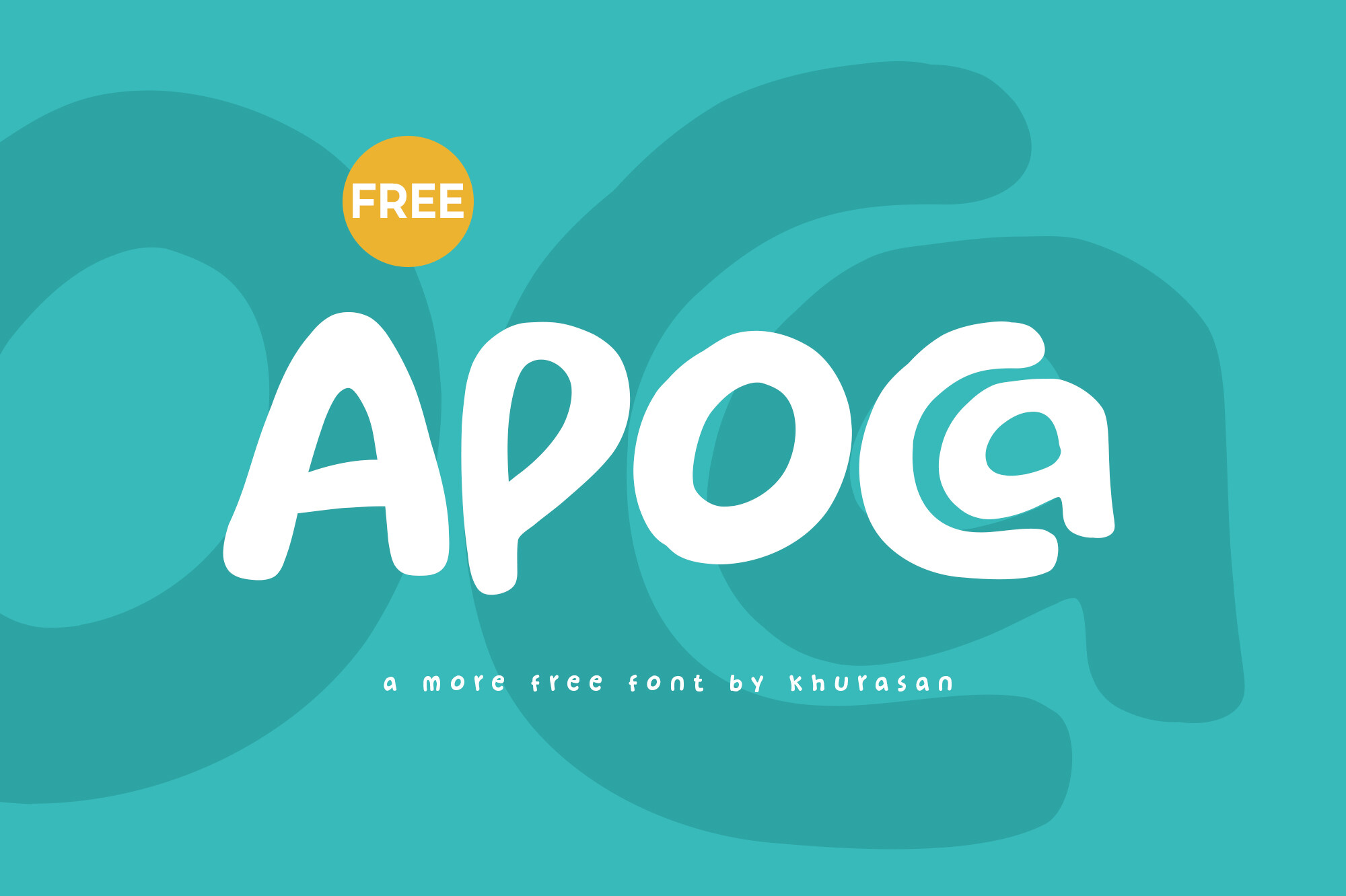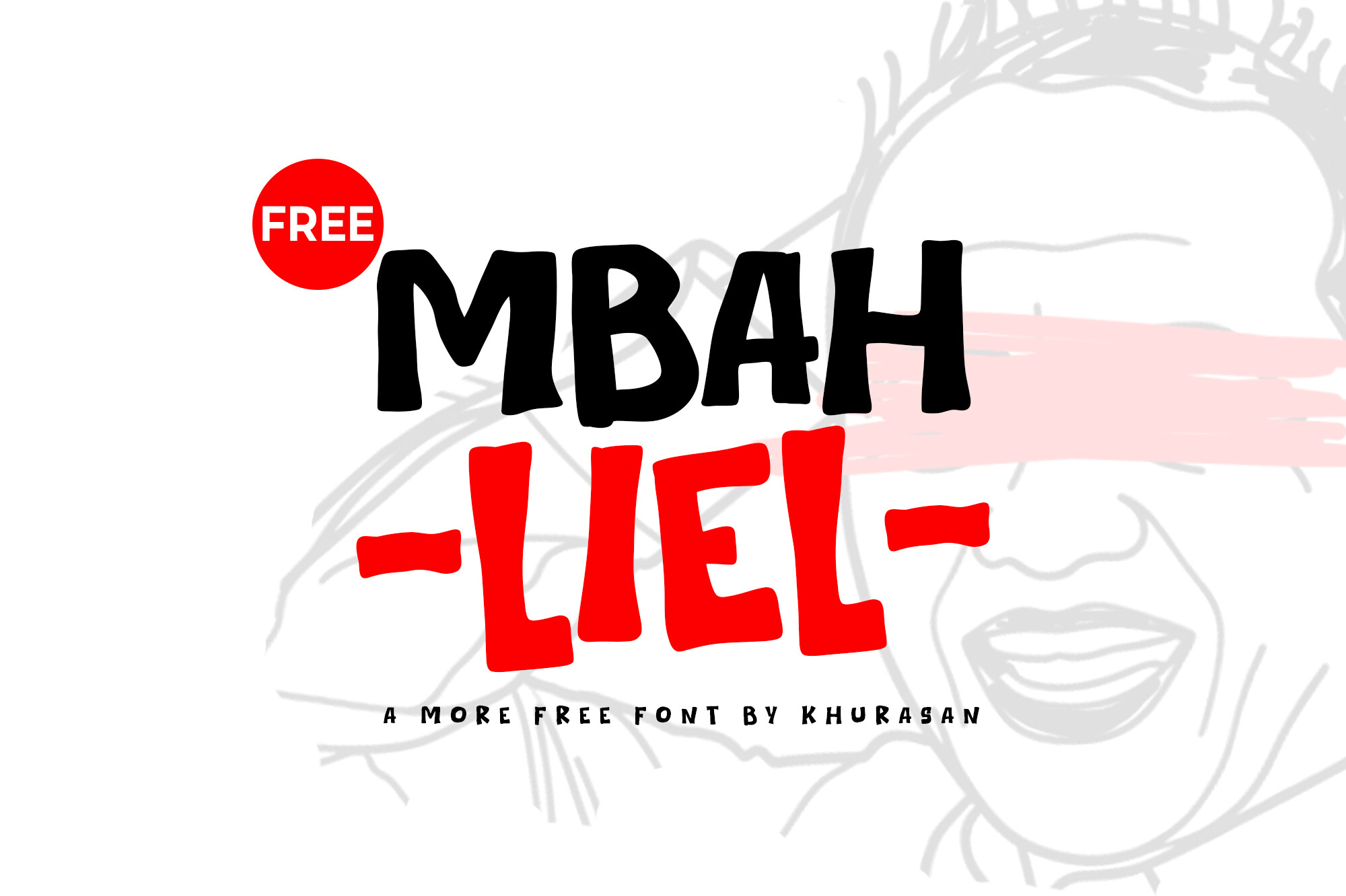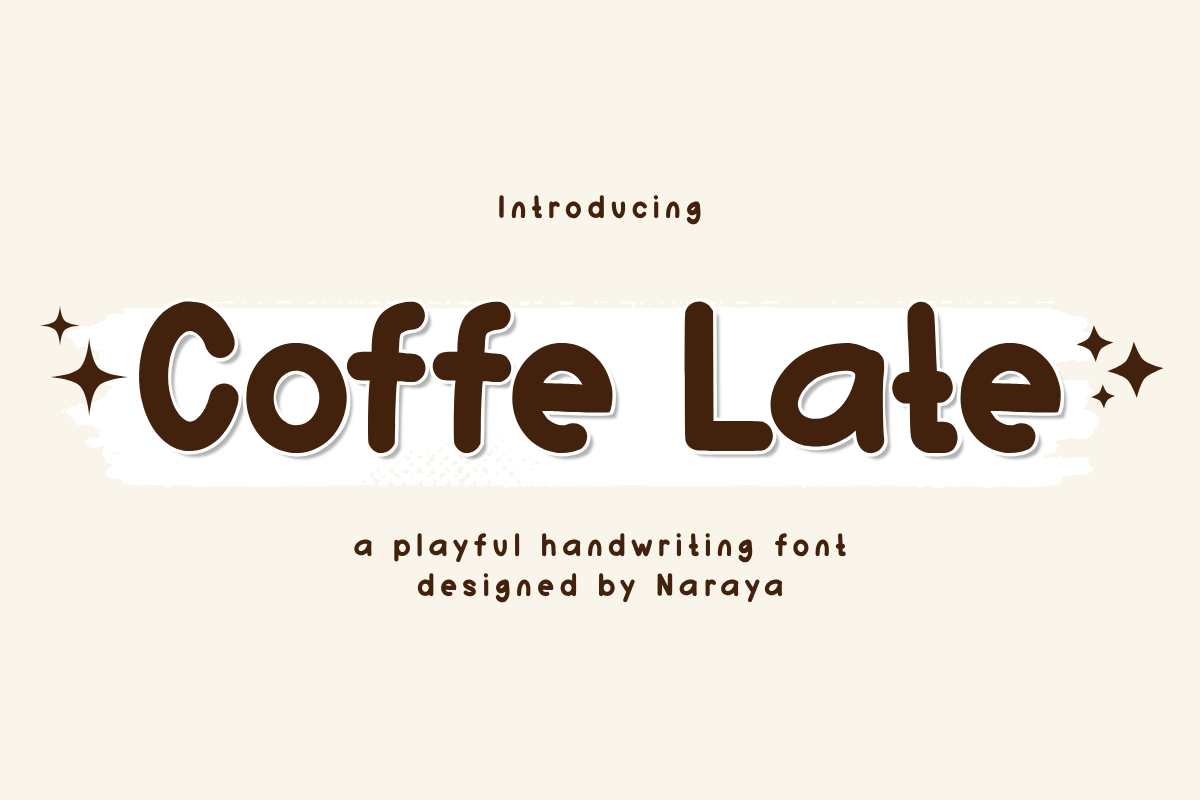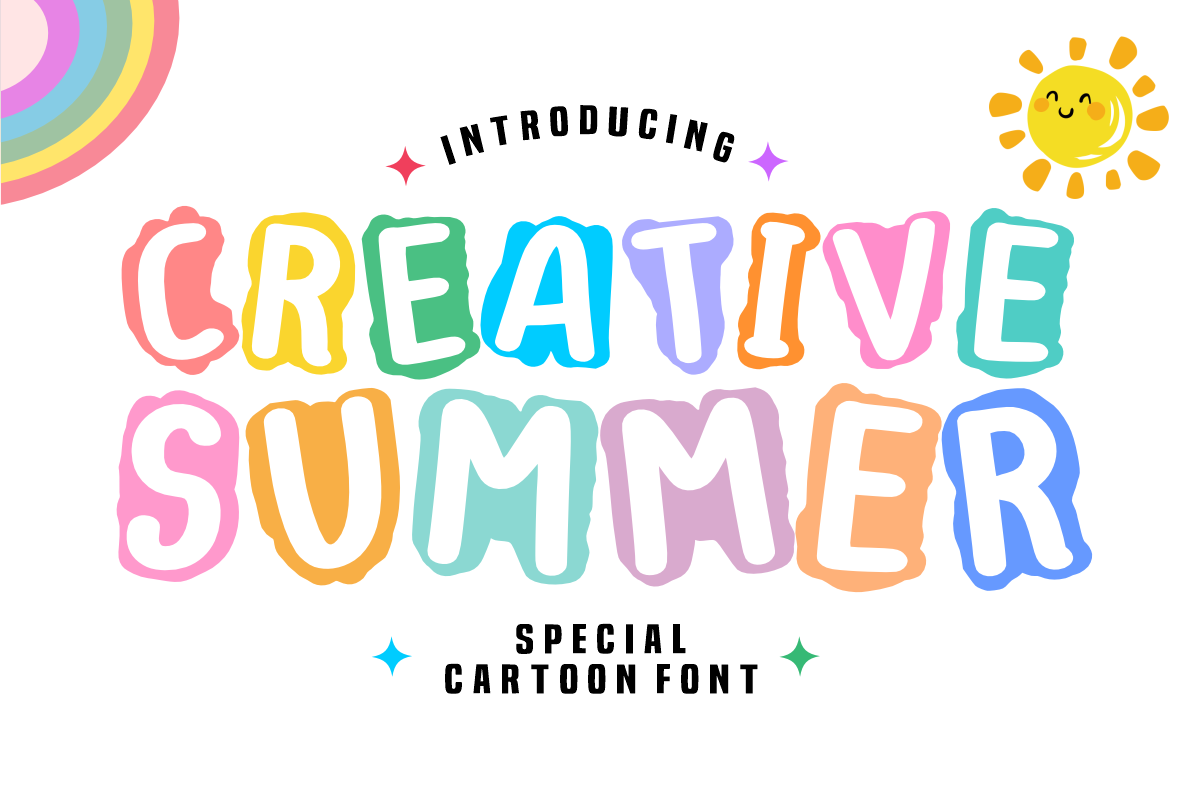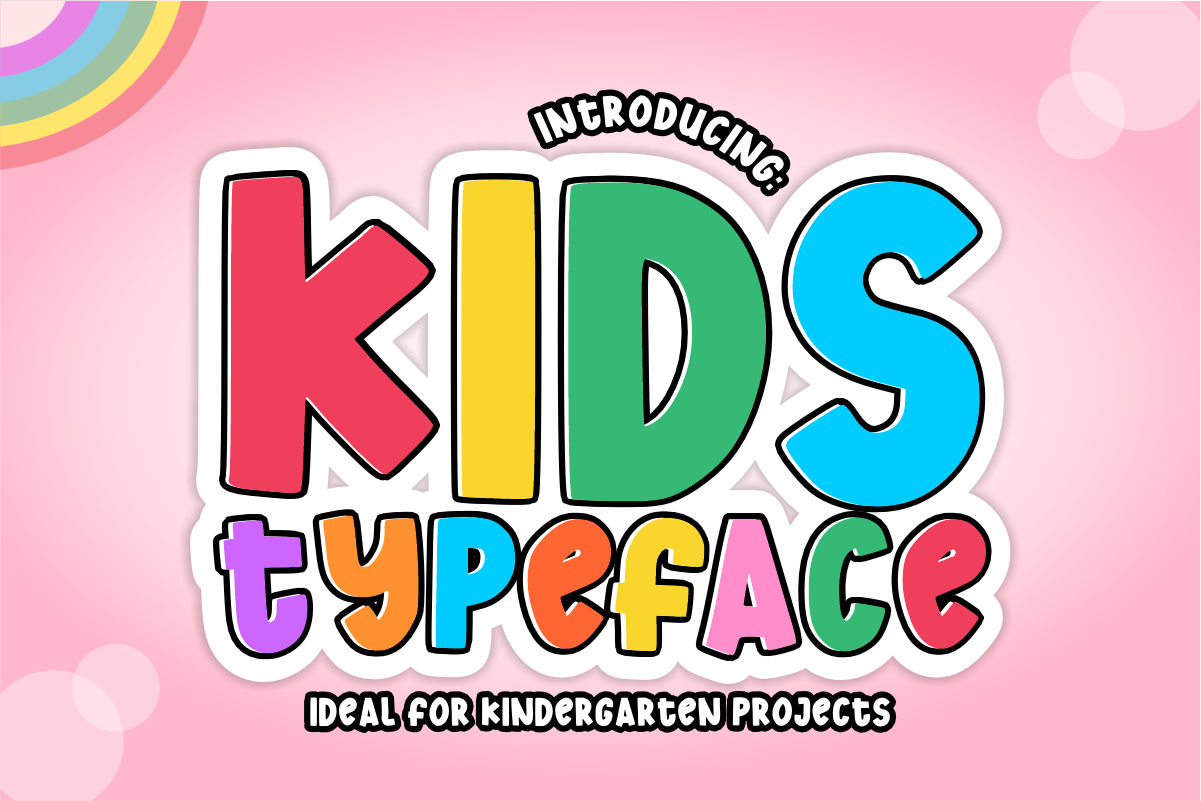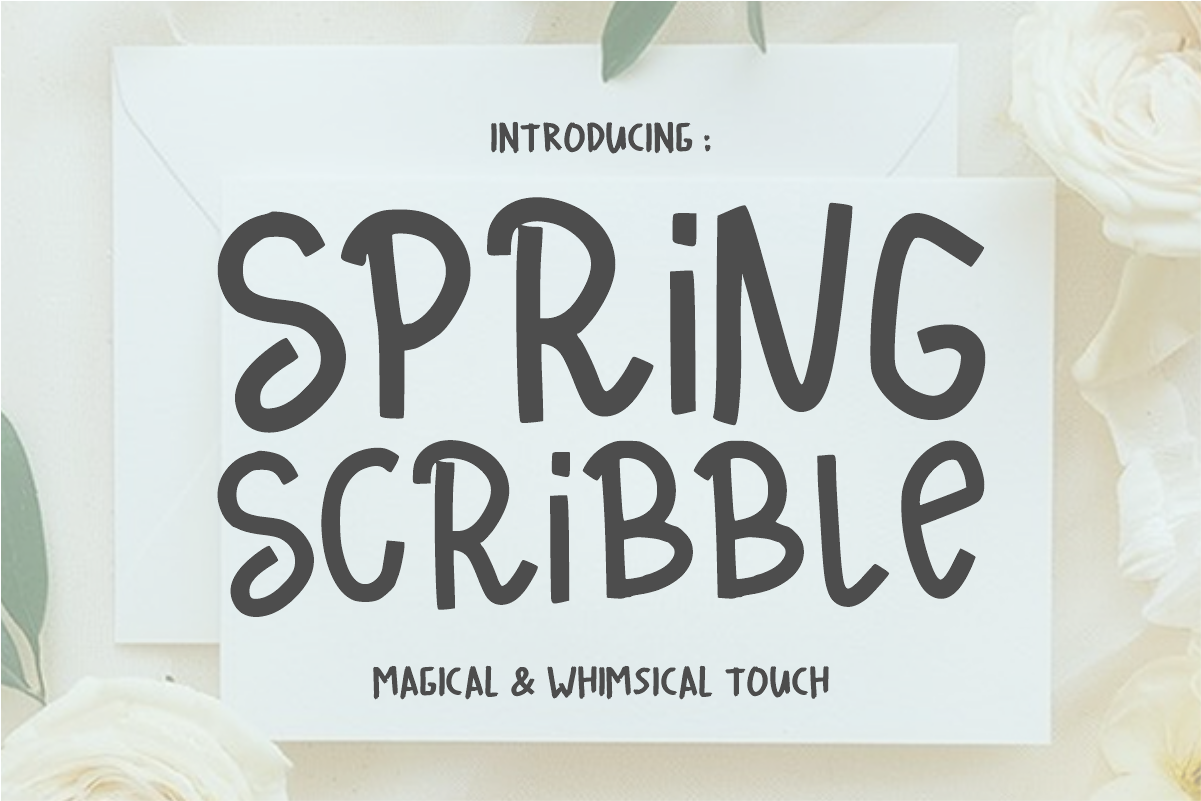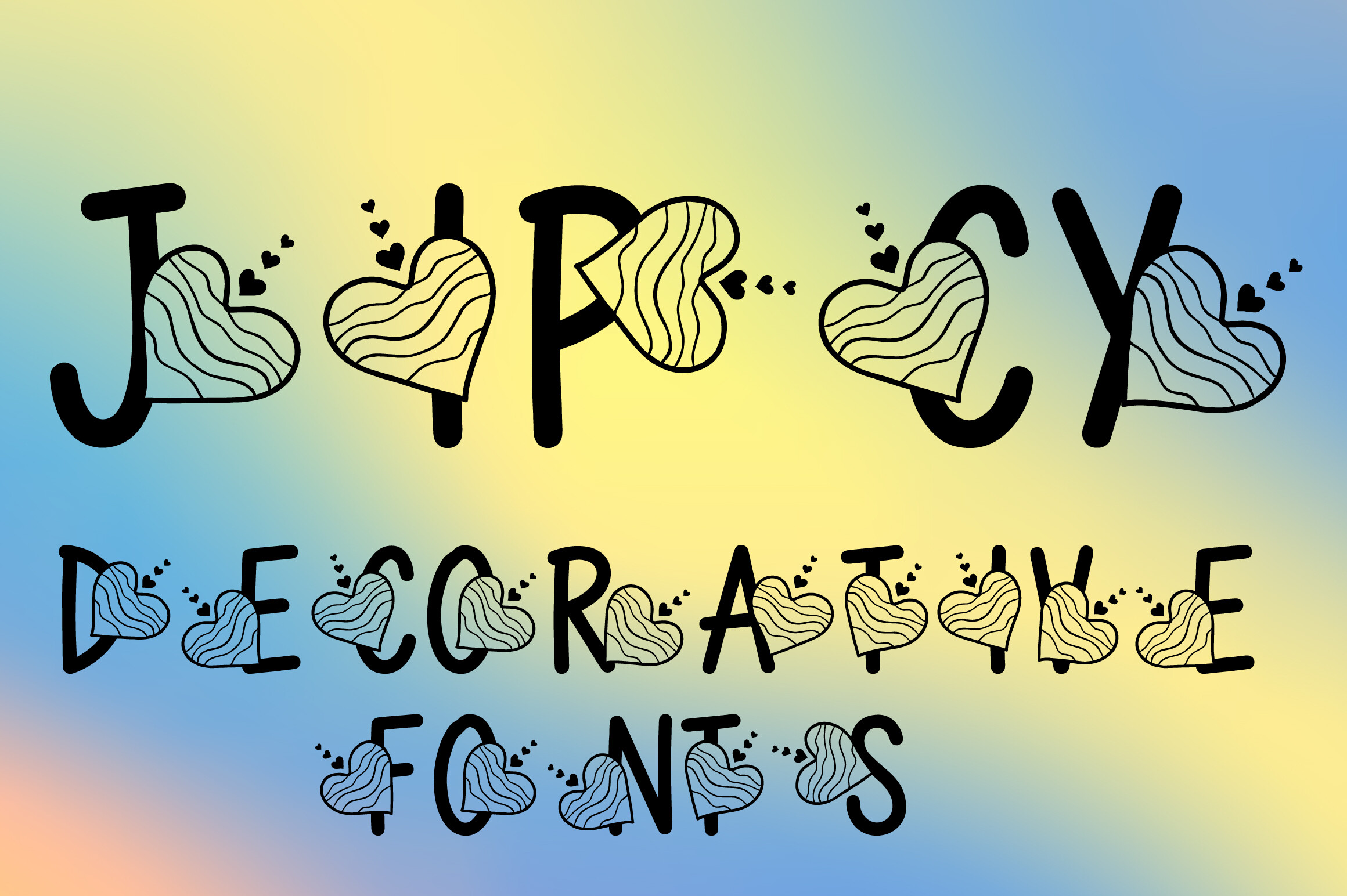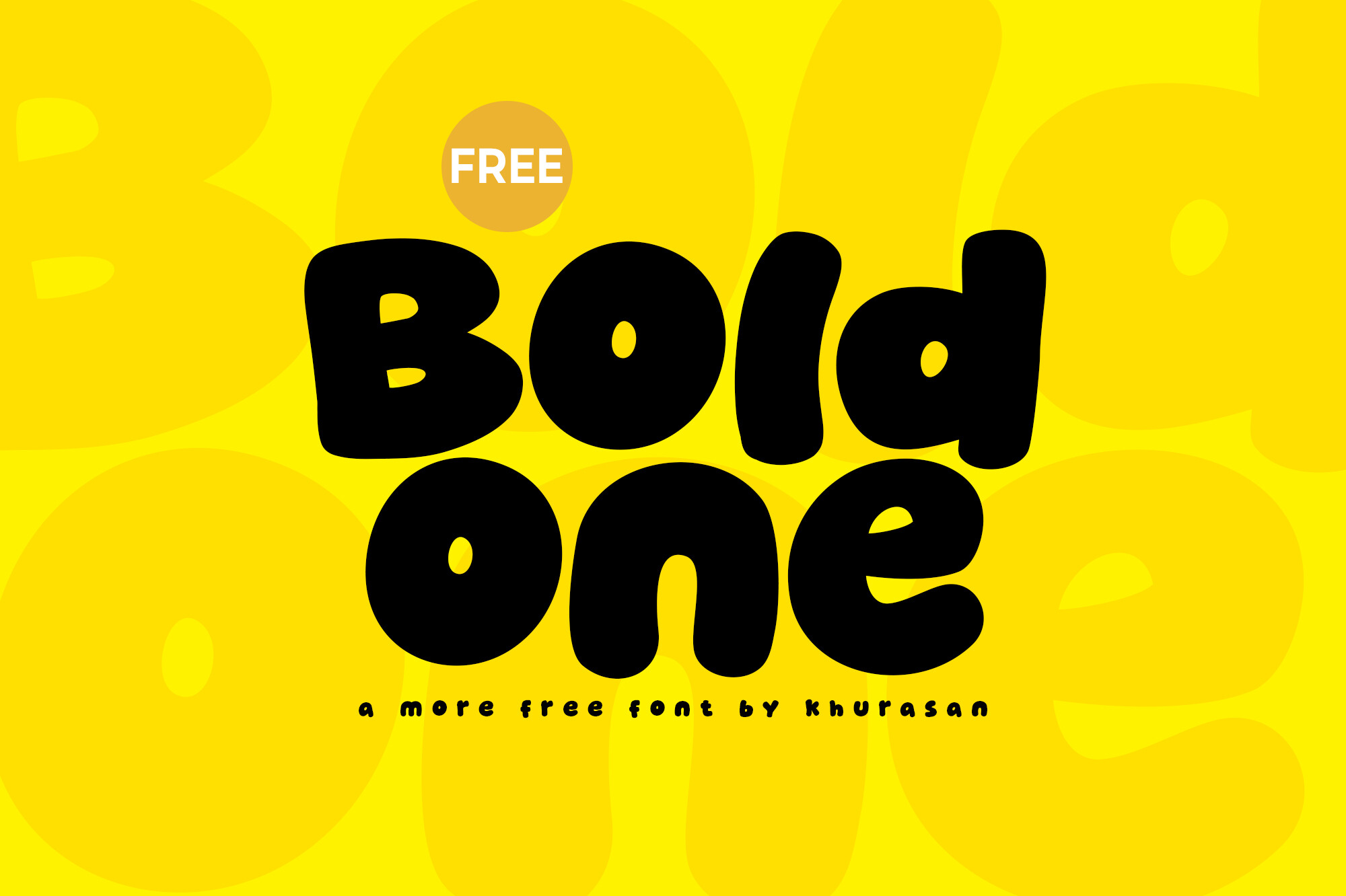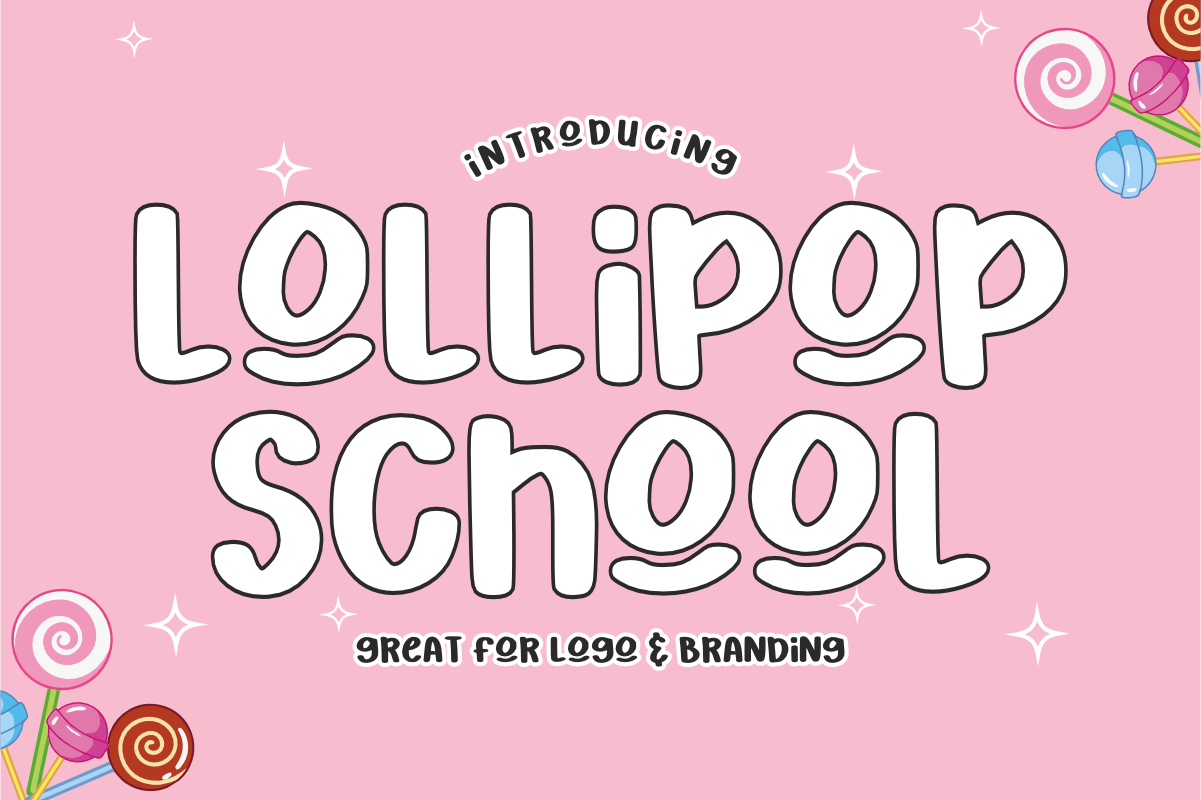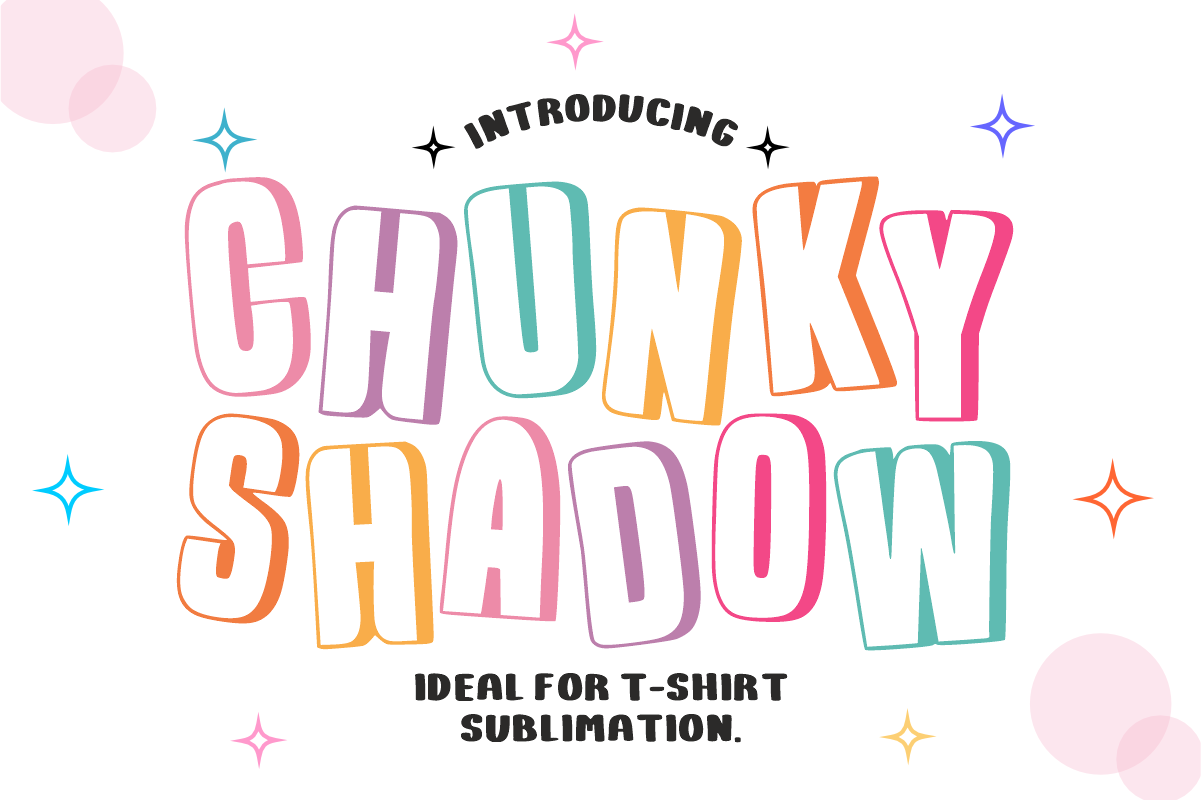
In this curated collection, we spotlight a versatile group of free commercial-use fonts designed to cover a wide spectrum of typographic needs. From bold, chunky display faces to airy, handwritten scripts and playful decorative styles, these fonts demonstrate how typography shapes mood, readability, and brand personality. The lineup includes heavy weights ideal for attention-grabbing headlines, rounded, friendly letterforms suited for youth-oriented branding, crisp sans alternatives for modern layouts, and whimsical scripts perfect for invitations and packaging. Designers can rely on these fonts for logos, posters, web design, product packaging, school materials, and social graphics without licensing concerns. Each pick balances character with legibility, offering practical, real-world usability across print and digital projects. This collection underlines the value of accessible typography for creative work and brand-building. The set is designed for quick exploration of type personalities, enabling writers and designers to experiment with hierarchy, contrast, and mood without licensing hurdles. Whether building a bold poster, a friendly label, or a clean online hero, these fonts offer scalable options and distinctive voices.
Apoca
Apoca channels a relaxed, casual vibe into any layout with its expressive display design. It blends fluid handwritten strokes—neatly weighted and marker-like—with playful, organic curves and irregular baselines to evoke real handwriting on the go. The typeface balances approachability with clear readability, making it suitable for a range of projects. Its informal personality supports indie lifestyle branding, small-batch product packaging, casual header text for books, handmade card designs, and bold social media quotes. Use Apoca to inject warmth and character while keeping legibility intact across print and digital applications.
Mbah Liel
Mbah Liel injects real energy into creative work with a bold, hand-drawn display style. Designed for impact, its heavy strokes and compact character spacing create a loud, lively presence. The typeface carries an edge of rebellion and urban attitude, evoking comic-book aesthetics and street art vibes. Its confident silhouette pushes titles and headlines to the foreground, while remaining legible at display sizes. Use Mbah Liel for eye-catching branding, posters, merch graphics, and energetic marketing pieces that benefit from a punchy, hand-crafted feel.
Coffee Late
Let Coffee Late infuse your designs with a playful, whimsical energy. This display font is crafted to bring life to a wide range of projects, from DIY crafts and logos to apparel graphics and planners. Its cheerful letterforms pair well with SVG work, sticker art, and quotable phrases, while maintaining versatility across digital and print. The typeface carries a friendly personality that makes headlines and branding feel approachable. Use Coffee Late to add charm and personality to creative pieces, without sacrificing readability or adaptability across various sizes and mediums.
Creative Summer
Creative Summer brings a sunny, playful energy to display typography. It presents chunky, rounded letterforms with a bright color outline that creates a lively, dimensional pop. The typeface radiates happiness and warmth, making words feel upbeat and approachable. Inspired by carefree beach party vibes, it suits cheerful branding for kids, school spirit graphics, and seasonal campaigns. Its friendly character and built-in 3D effect give headlines a celebratory feel without sacrificing legibility. Use Creative Summer to inject color, charm, and a festive mood into logos, posters, packaging, and digital designs.
Kidstypeface
KidsTypeface brings a playful, bubbly presence to designs aimed at younger audiences. This bold display font relies on chunky, rounded shapes with a friendly bubble-like feel to convey energy and charm. It thrives in classroom materials, posters, and kid-centered branding where visibility matters. The letterforms remain legible at various sizes while delivering a cheerful, approachable mood. Ideal for educational graphics, storybook covers, vinyl crafts, and apparel, this typeface adds personality without sacrificing readability. Perfect for school branding, children's products, and activities that seek a lively, welcoming aesthetic.
Spring Scribble
Spring Scribble offers a sweet, organic feel with a hand-drawn charm. This approachable handwritten style mimics casual pen strokes, delivering a natural flow and soft, rounded terminals. The result is a fresh, warm aesthetic that works across branding, invitations, and packaging. Its whimsical height variations give a personal, human touch to headlines and body text alike. Featured samples demonstrate a genuine handwriting vibe that reads as friendly and approachable. Use Spring Scribble to add an intimate, craft-inspired personality to your projects, from printed materials to digital graphics. Download and start incorporating its playful character today.
Jipcy
Jipcy presents a decorative display with heart-led charm. The family covers uppercase letters and digits, drawing inspiration from romantic motifs and friendly heart accents. Its versatile aesthetic works well for logos and branding, invitations, posters, packaging, Valentine-themed projects, as well as social graphics and a variety of creative designs. The typeface adds a whimsical, affectionate flourish to any composition, delivering a sweet yet stylish touch. Ideal for craft projects, event materials, and branding that aims to feel warm and inviting.
Boldone
Boldone delivers a saturated, candy-like impact on any design. This extra-heavy display face uses chunky uppercase forms with softly rounded stems and compact alignment, accented by a playful, comic-ready stance. It sits between retro snack-brand visuals from the 90s and contemporary street-art sensibilities, offering a bold option for independent fashion logos, playful children's apparel graphics, statement stickers, bakery packaging, and striking social media headlines.
Lollipop School
Lollipop School sweetens design with rounded shapes and a distinctive smile-accent under each character. This friendly display font exudes happiness and playfulness, making it a natural fit for logo and branding work that aims to feel cheerful. It also translates well to digital and physical products, with strong compatibility for cutting machines, sublimation, and print-on-demand graphics. Ideal uses include candy-store branding, playful headlines, kids’ invitations, educational posters, character stickers, apparel, and children’s book covers. Lollipop School brings a bright, sugary character to projects that want to stand out with charm.